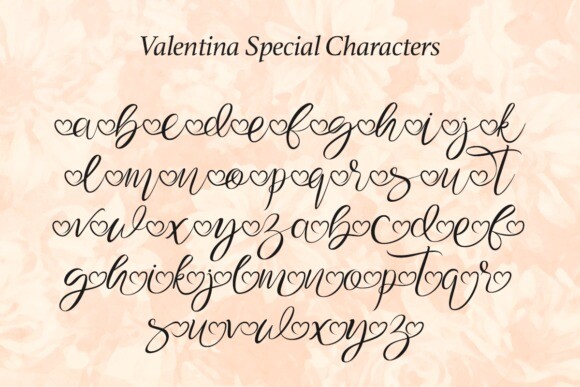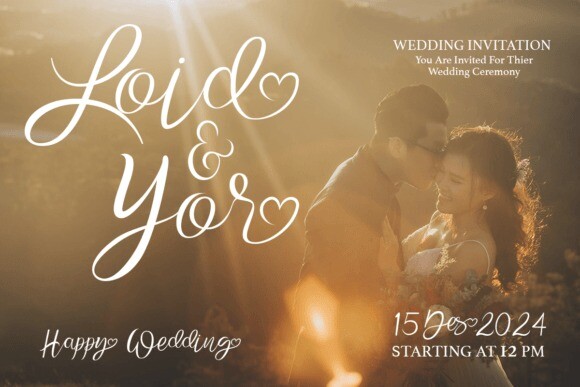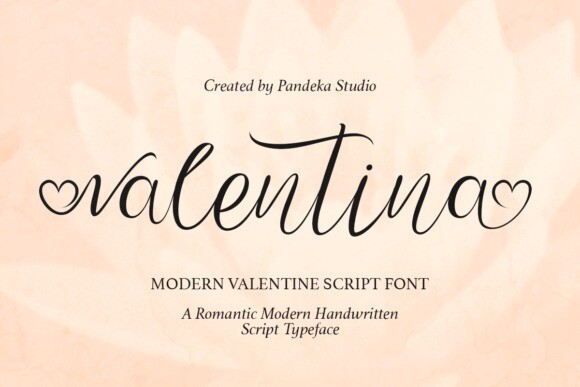
Valentina Script Typeface
Valentina Script Typeface a handwritten calligraphy heart font, Valentina, a lovely and elegant script font designed for signature logos, wedding invitations, custom branding, websites, social media, and more! Just in time for Valentine’s Day, it’s perfect for couple names or anything that needs a delicate and romantic touch.
Packed full of alternates – included with Valentina font is a full set of beginning and ending lowercase swashes to give you variety for logo and name designs.